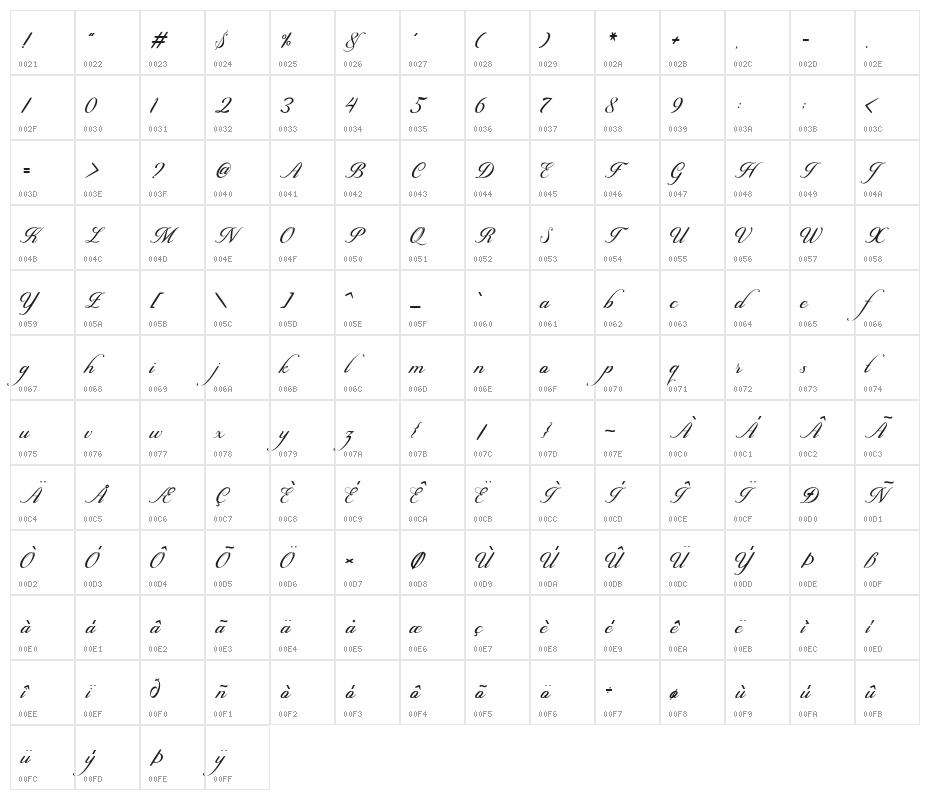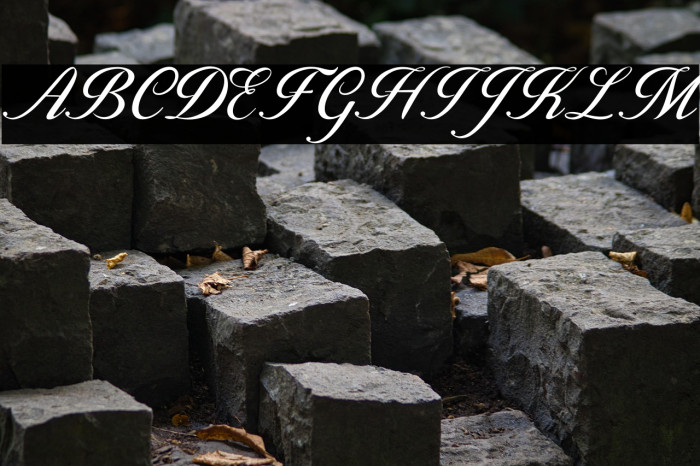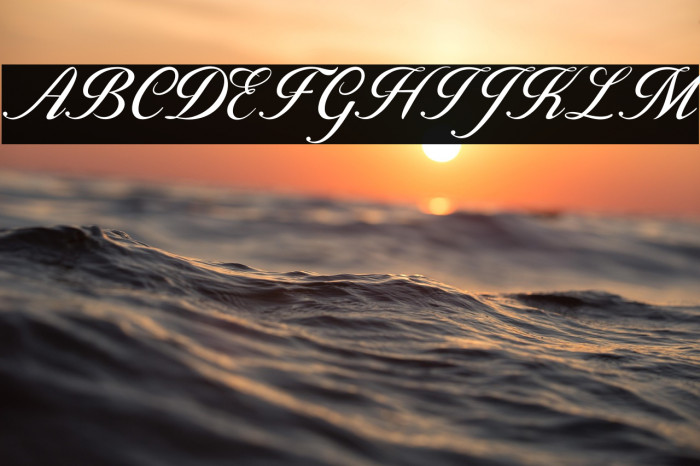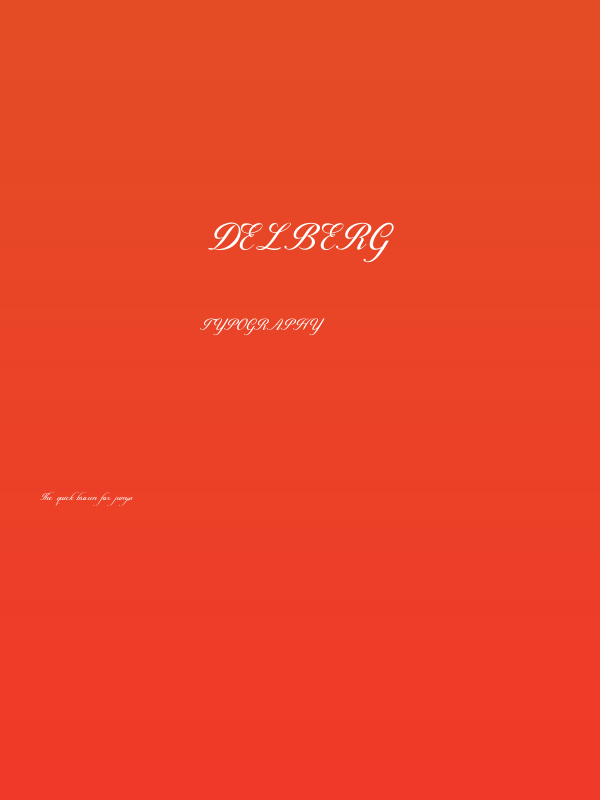
Delberg Font
Delberg Description
This elegant script font features flowing, cursive letterforms with a sophisticated flair. The uppercase letters are ornate, with sweeping curves and delicate flourishes that add a touch of luxury. The lowercase letters maintain a consistent style, with smooth connections and a graceful appearance. The numerals are stylish and complement the overall aesthetic, while the special characters are designed to match the font's refined look. This font exudes a sense of elegance and is perfect for projects that require a touch of class and sophistication.
| Proposed Projects | Ideal for wedding invitations, luxury branding, elegant stationery, and high-end product packaging. |